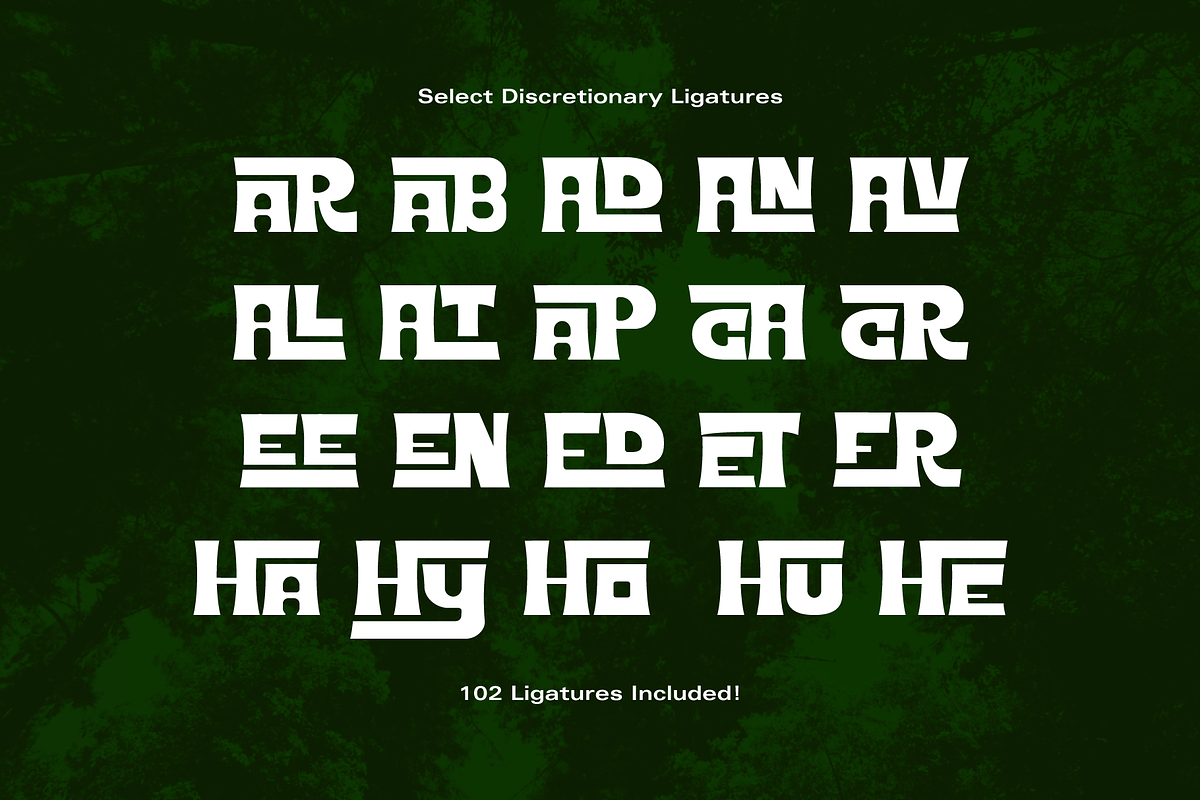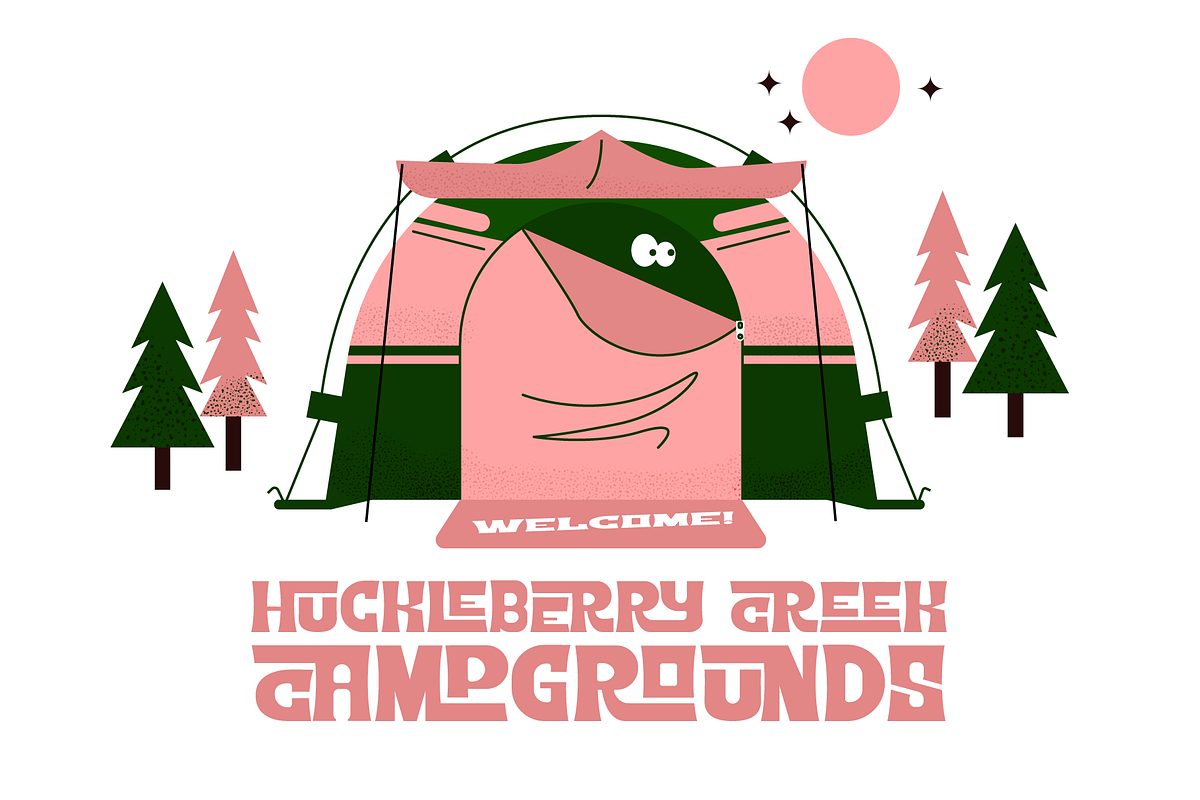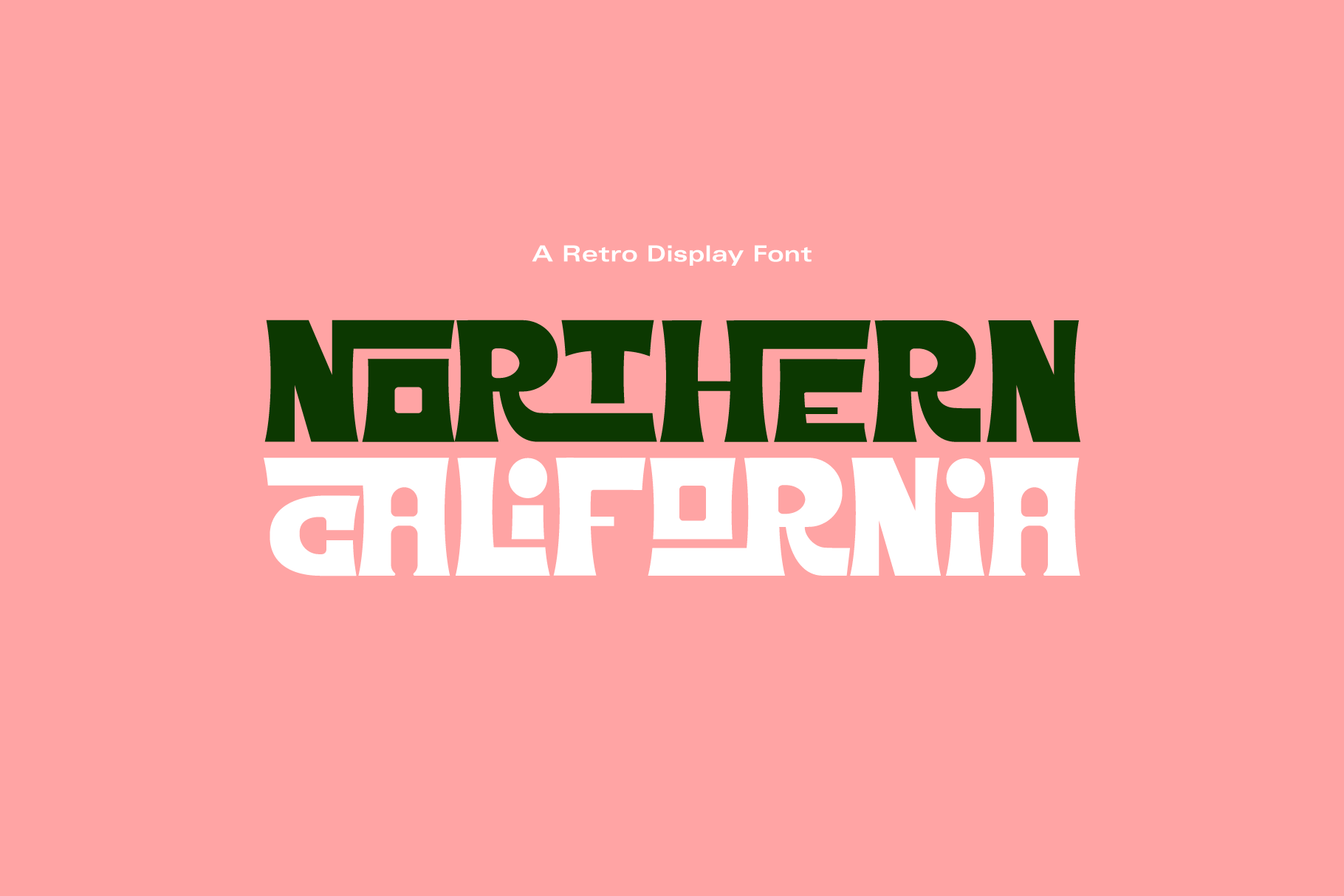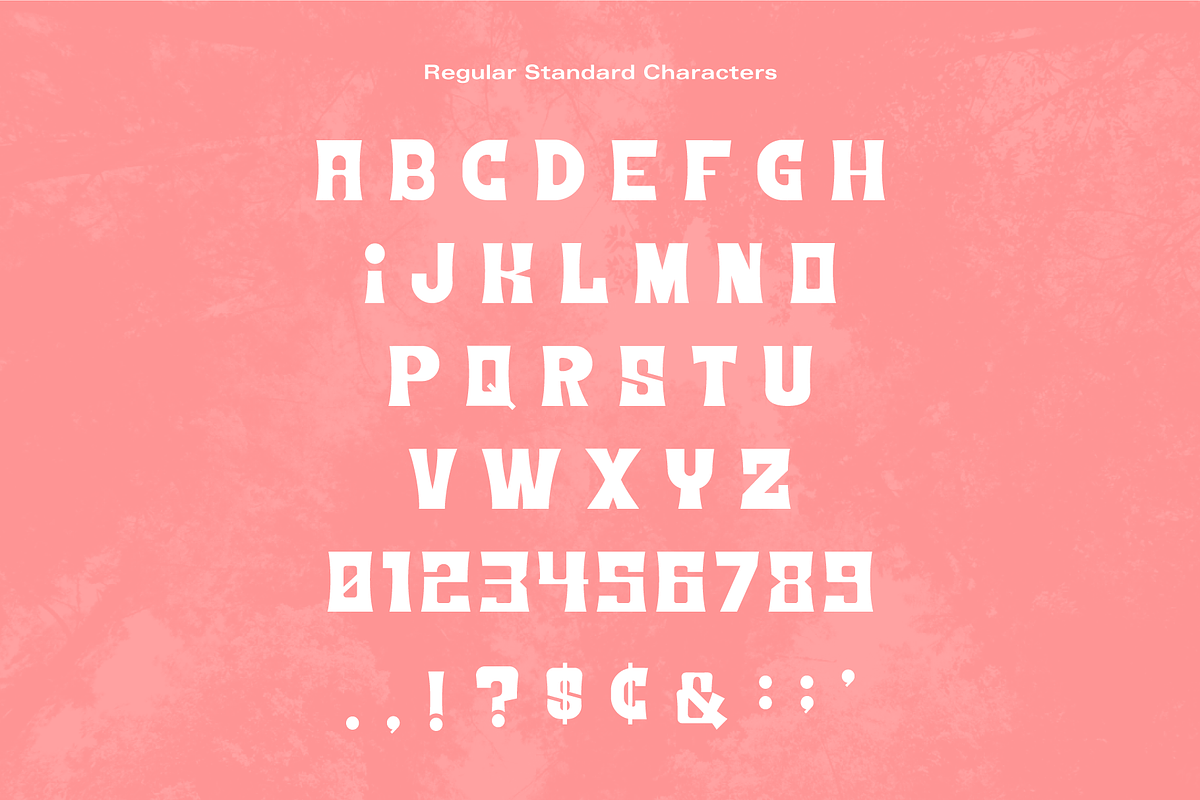
Northern California Display Font
Northern California is a fun retro display font by Holt510. It is an all caps font with loads of discretionary ligatures, standard punctuation and alternate characters. The font is based on lettering of the 1960s and 70s. It also features a full set of numerals. The ligatures really make this font fun to use, and I hope that you enjoy working with it.
- All Caps Font
- 102 ligatures
- Alternate characters for select letters
- 2 weights Regular and Lean